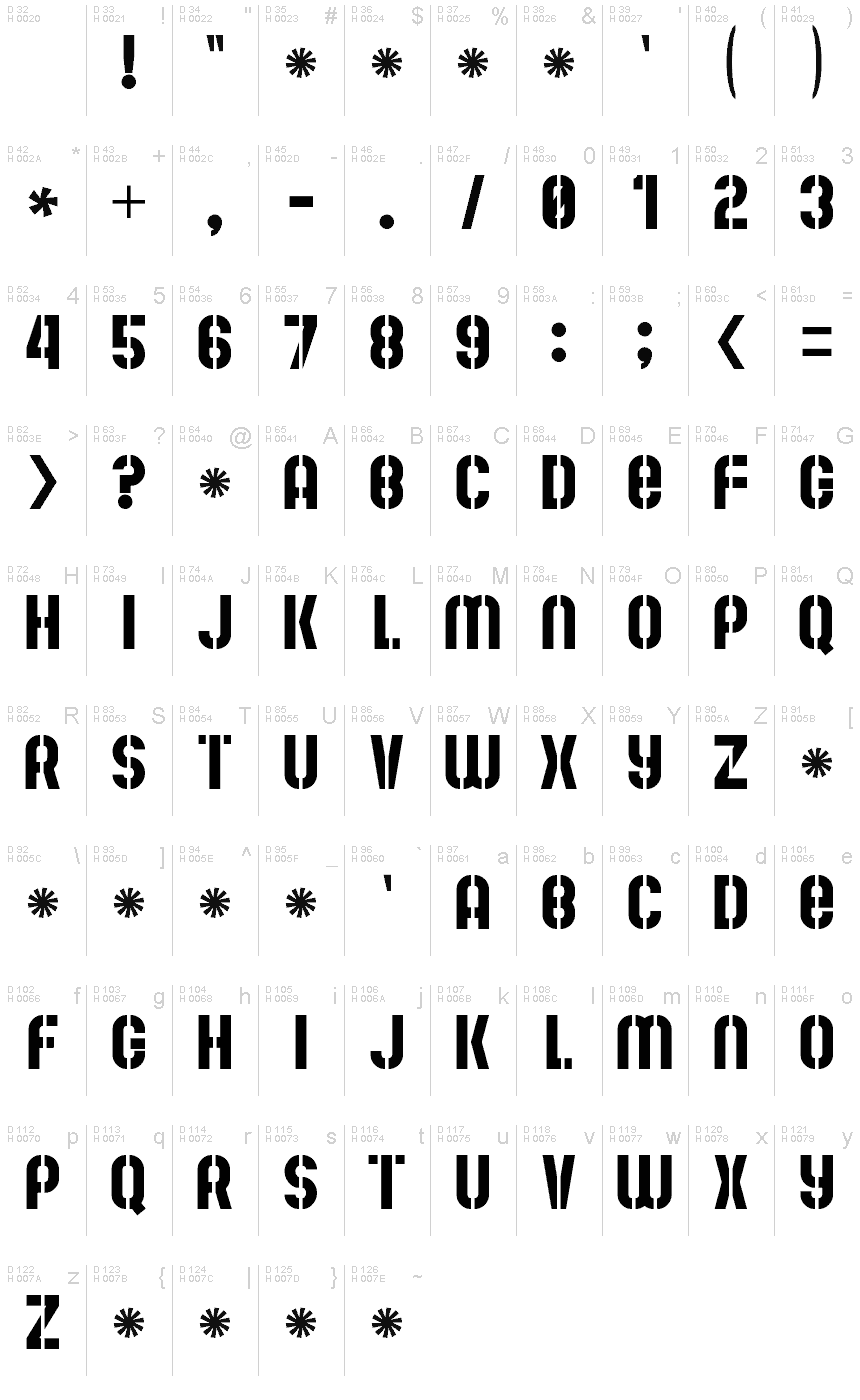
Mute Fruit
Mute Fruit by Pizzadude is a captivating display font that exudes a sense of industrial grit and urban edge. Its stencil-inspired design and condensed width lend it a striking, unapologetic presence, perfect for making a bold statement in various design applications. The rough, almost weathered appearance of the letterforms adds depth and character, evoking a sense of rugged, no-frills authenticity.
Mute Fruit's uncompromising aesthetic makes it a versatile choice for projects requiring a strong, impactful visual identity, such as branding for modern urban establishments, event promotions, or product packaging with a distinct industrial flair. Its condensed nature also ensures legibility and a clean, refined look, even when used at larger scales or in limited space.